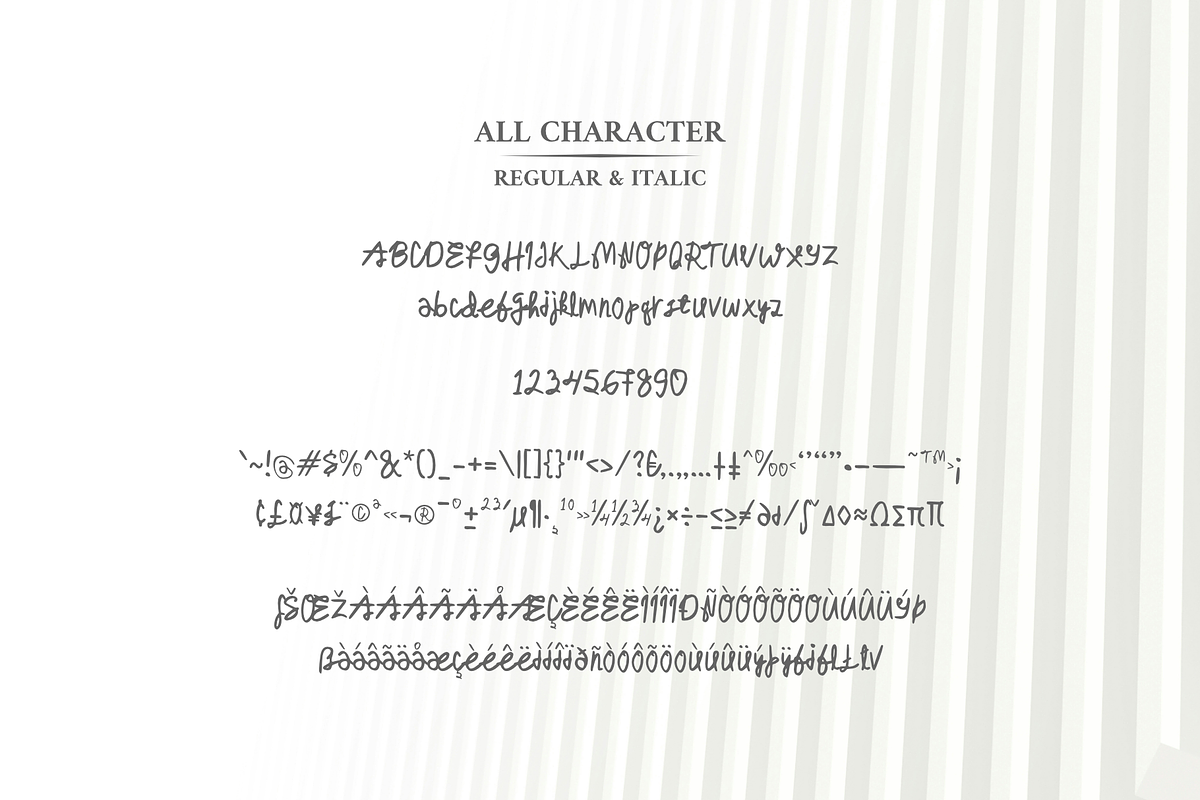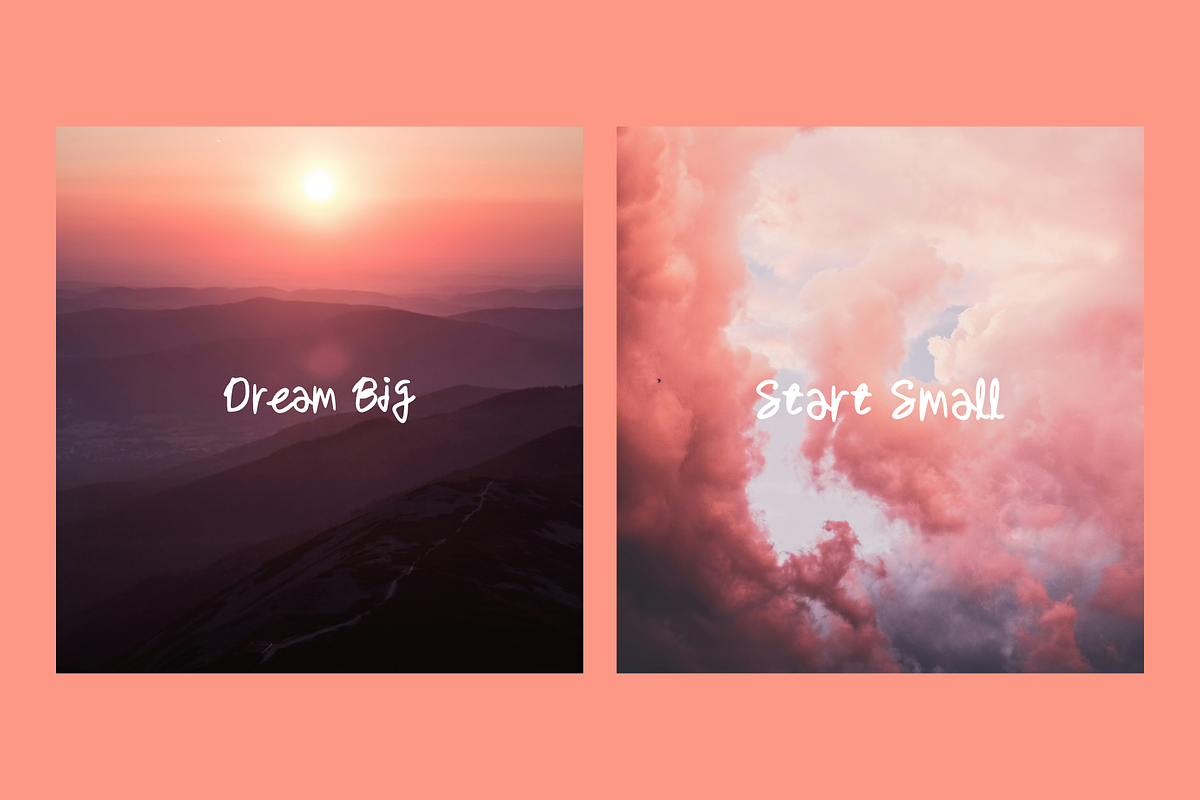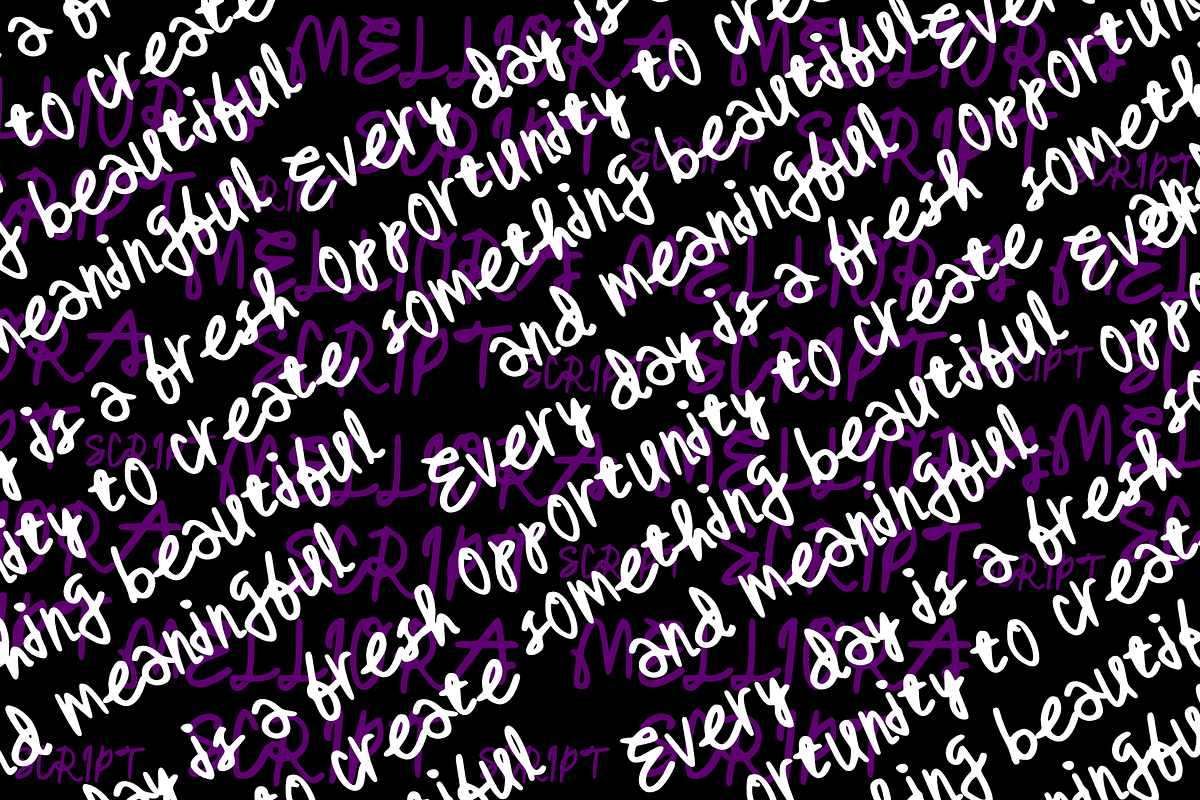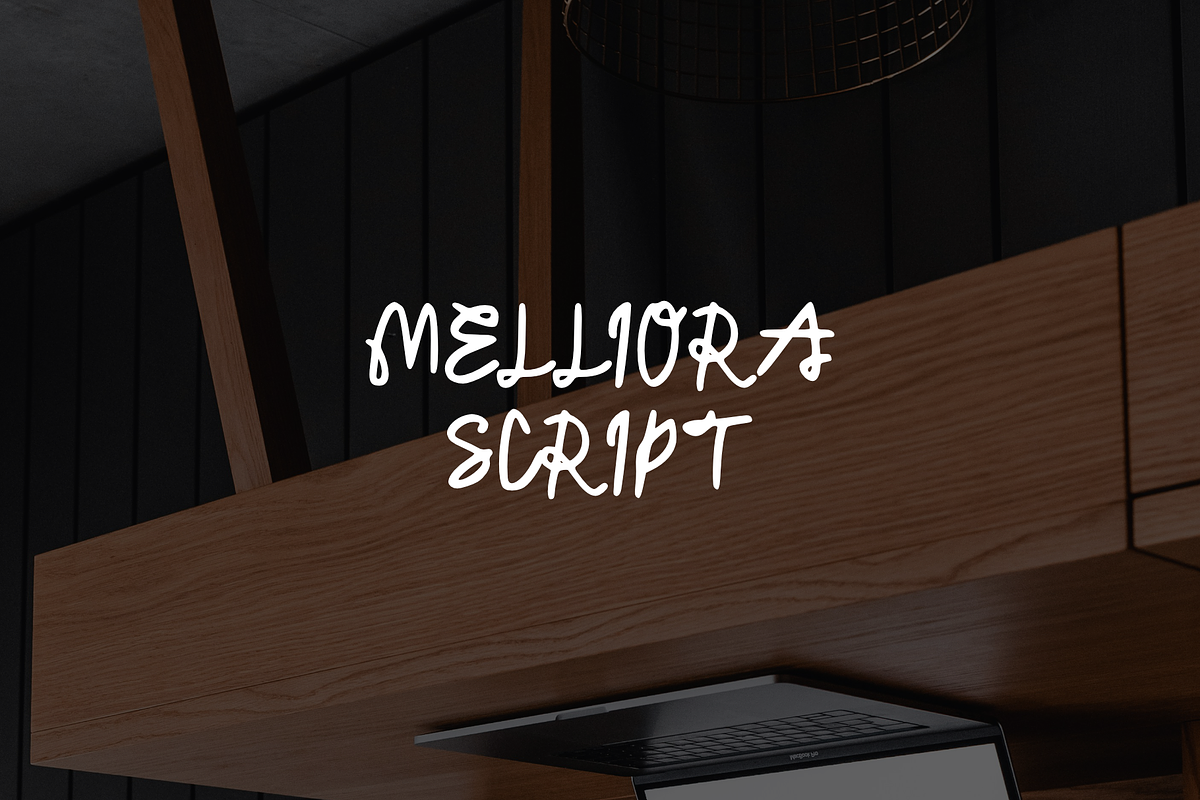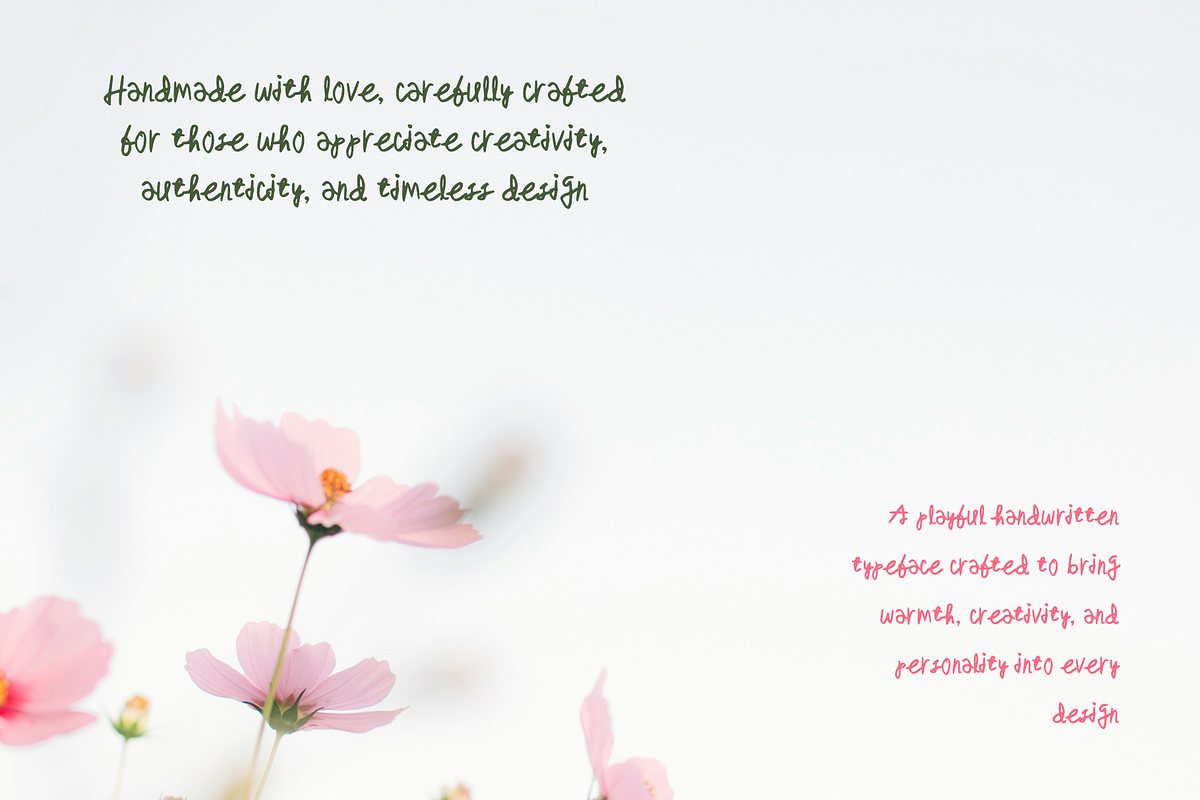
Melliora Script Casual Signature
Melliora Script is a charming handwritten typeface that combines playful elegance with a natural, organic flow. Designed to capture the warmth of genuine handwriting, this font features smooth curves, expressive strokes, and a relaxed personality that brings life to any creative project.
Its casual yet stylish appearance makes it perfect for branding, logos, social media content, packaging, greeting cards, invitations, quotes, and lifestyle designs. Whether you're creating a modern brand identity or adding a personal touch to your artwork, Melliora Script delivers authenticity and creativity with effortless charm.
The font strikes a beautiful balance between friendly and sophisticated, making it versatile for both professional and personal projects. With its distinctive handwritten character and smooth readability, Melliora Script helps your message feel more engaging, memorable, and heartfelt.
Branding & Logos
Wedding Invitations
Greeting Cards
Quotes & Posters
Handmade & Craft Projects
Lifestyle and Beauty Branding
Natural Handwritten Style
Smooth and Flowing Letterforms
Uppercase & Lowercase Characters
Numbers and Punctuation
Easy to Read
Versatile for Print and Digital Use
Melliora Script brings creativity, warmth, and personality to every design, making it an ideal choice for projects that deserve a genuine handcrafted feel.